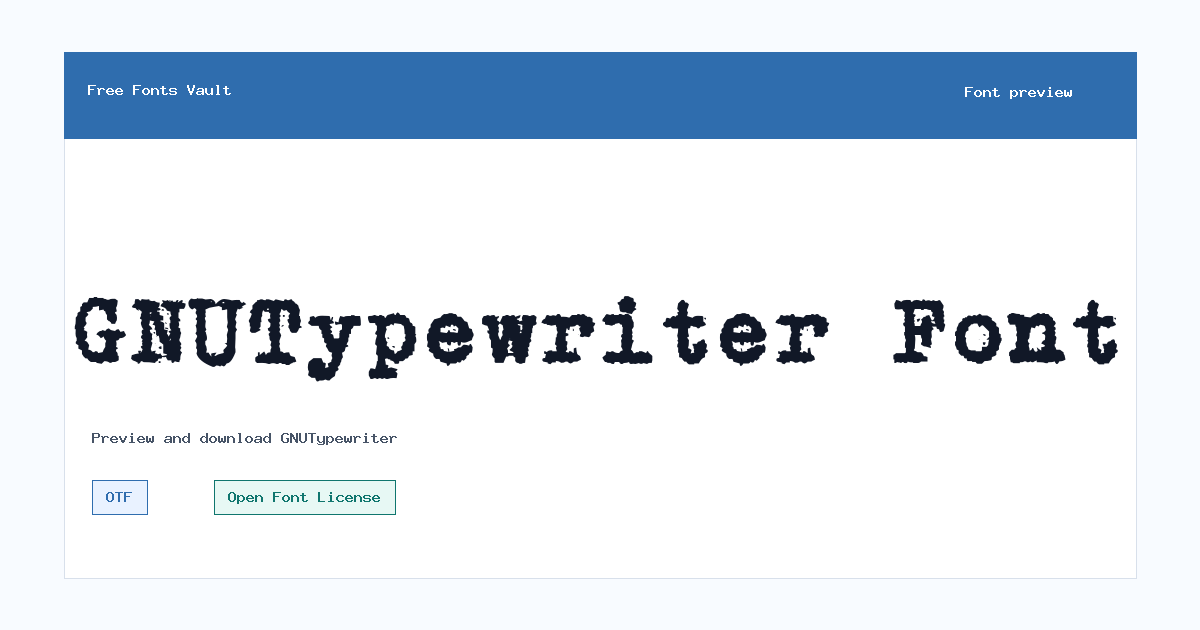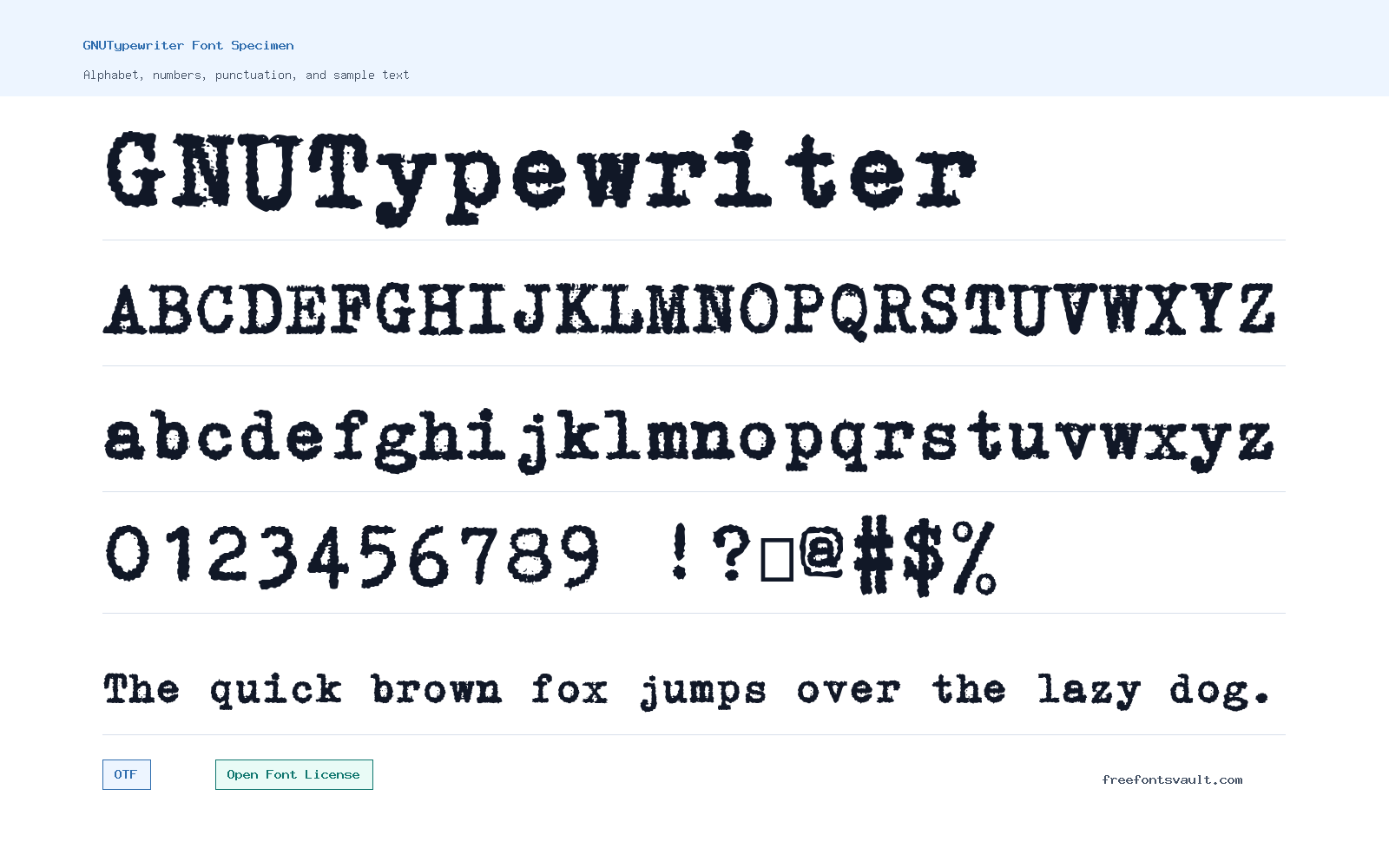
GNUTypewriter
GNUTypewriter recreates the broken ink and uneven pressure of a mechanical typewriter instead of drawing a perfectly clean monospace. Lukasz Komsta’s one-style face is most convincing when the texture is allowed to remain visible.
The inspected specimen has slab-like serifs, rough edges and deliberate gaps inside the strokes. Characters sit on a typewriter rhythm, but the distress varies from letter to letter: the capital G is heavily eroded, the lowercase e remains compact, and punctuation carries the same worn impression. The result looks like ink transferred through an aging ribbon rather than a digital grunge overlay.
That texture suits archival captions, zine headings, fictional case files, quote cards and short labels. It is less suitable for small legal copy or long articles because the distressed edges reduce clarity. Keep the type large enough to retain the broken detail, and use a calm serif or sans serif for the surrounding explanation.
Debian’s maintained fonts-gnutypewriter package independently describes the family as a multilingual typeface imitating a real typewriter, with full Basic Latin and Basic Cyrillic support and partial Central European support. The local file identity and licensing were verified from its own name table.
Preview a sentence with capitals, lowercase letters, numbers and quotation marks. At small sizes, compare the counters in e, a and 8. If they start to close, increase the size or use GNUTypewriter only for a heading.
Does GNUTypewriter imitate a clean monospace?
No. Its defining feature is the irregular, worn ink texture of a real typewriter impression.